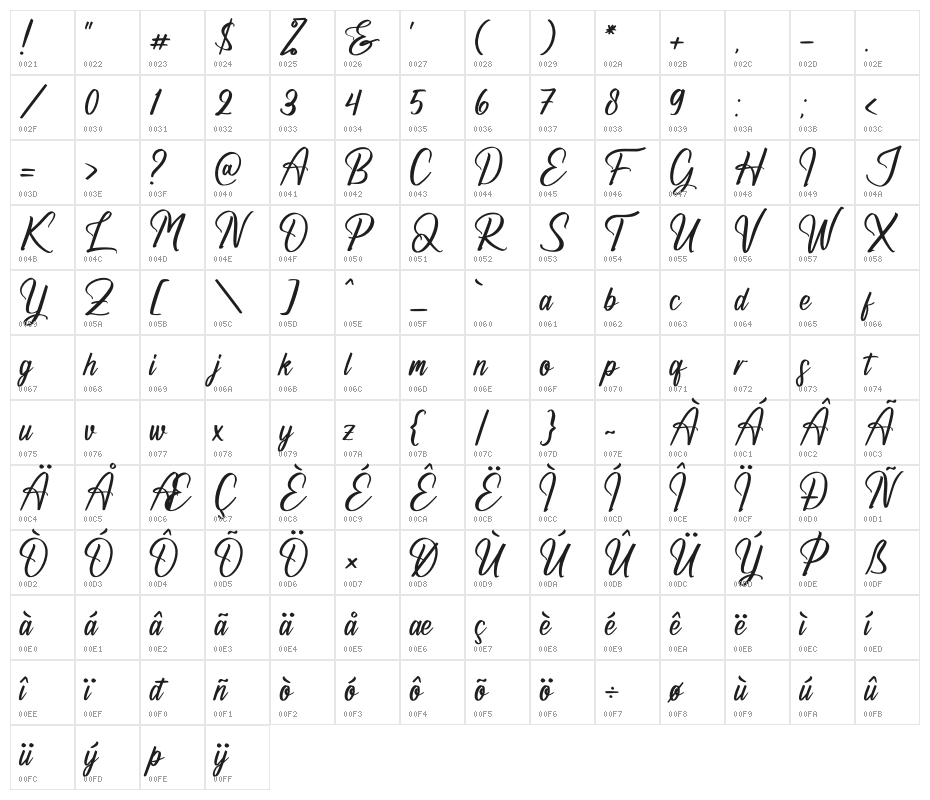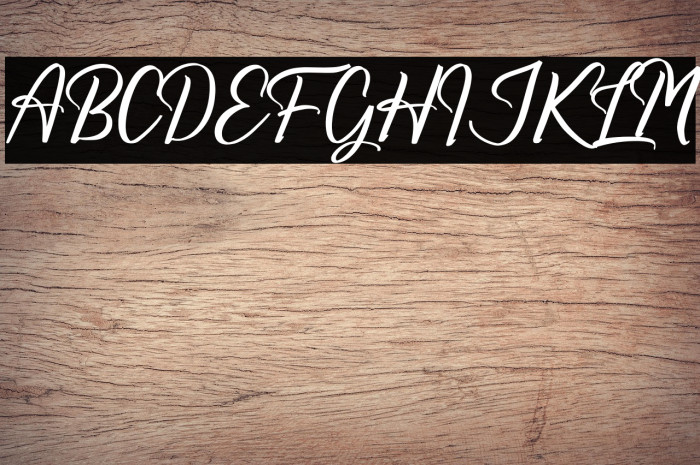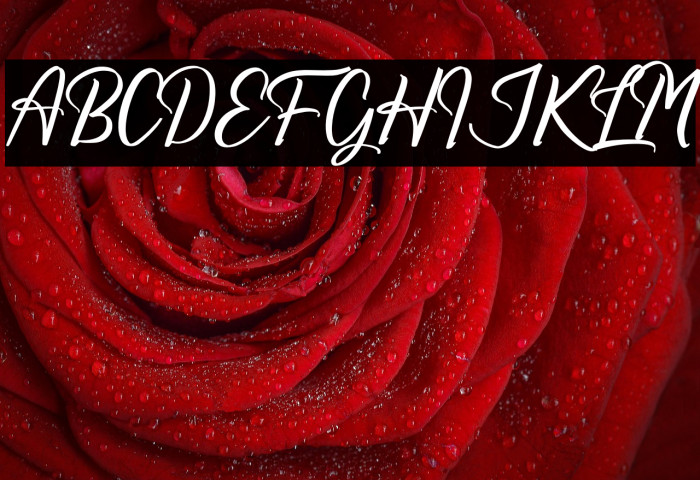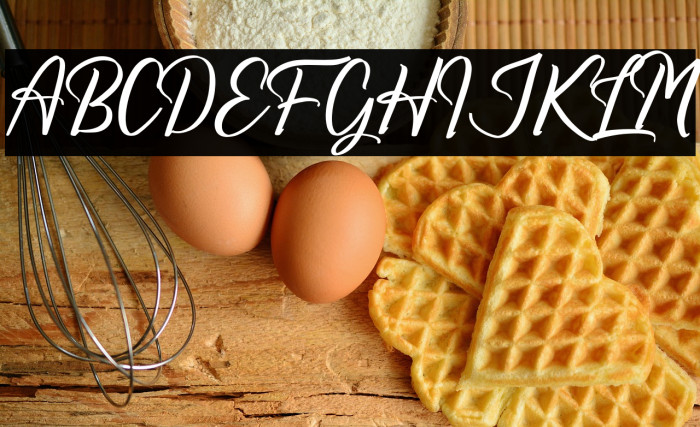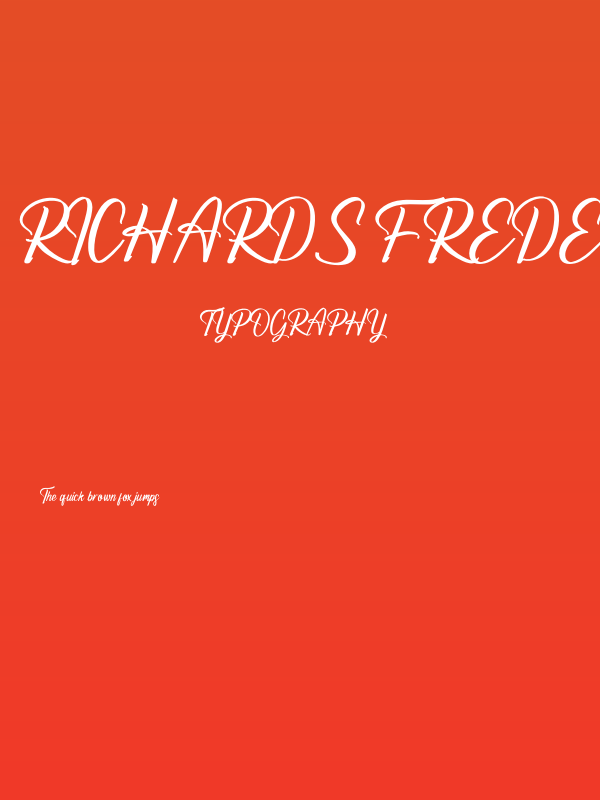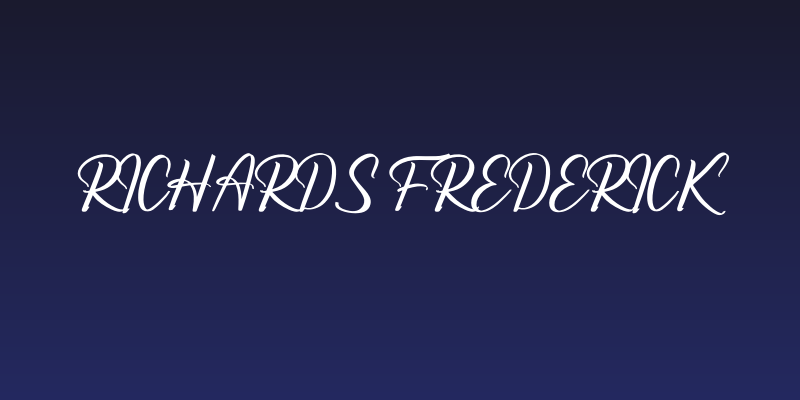
Richards Frederick Font
Richards Frederick Description
This font features a dynamic and flowing script style, characterized by its elegant and cursive letterforms. The uppercase letters exhibit a graceful, sweeping motion with a slight slant, while the lowercase letters maintain a consistent fluidity, enhancing readability. The numerals are designed with a similar flair, ensuring they complement the overall aesthetic. Special characters are crafted with attention to detail, adding to the font's versatility. This font's design is both sophisticated and approachable, making it suitable for a variety of creative applications.